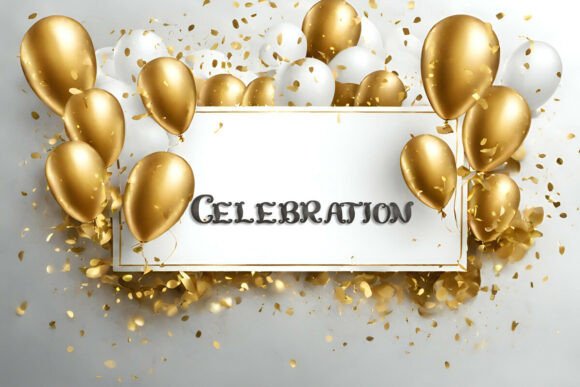
Celebration Font – The Life of Your Design Party
Are you looking for a font that can add a touch of excitement and joy to your designs? Look no further than Celebration Font! This versatile and spirited typeface is perfect for a wide range of projects, from festive banners to headline-worthy magazine covers. With its clean, dynamic cuts, Celebration Font brings a modern flair to any project without losing its charm.
What Makes Celebration Font So Special?
Celebration Font is more than just a font – it’s an experience. Its unique design makes it perfect for a variety of applications, including:
- Designing branding materials that stand out: Whether you’re creating a logo, business card, or brochure, Celebration Font is sure to make your brand shine.
- Crafting eye-catching stickers with personality: Add a pop of fun and color to your stickers with Celebration Font’s playful design.
- Adding pizzazz to SVG files or greeting cards: Take your SVG files and greeting cards to the next level with Celebration Font’s modern and dynamic cuts.
- Working on Cricut projects that need that extra spark: Whether you’re creating custom signs, decorations, or gifts, Celebration Font is the perfect addition to your Cricut projects.
Celebration Font is perfect for a wide range of projects, including:
- Social media posts that need to shine: Stand out on social media with Celebration Font’s bold and eye-catching design.
- Posters that demand attention: Create posters that grab attention and leave a lasting impression with Celebration Font.
- Holiday projects, party invites, and more: Add a touch of festive fun to your holiday projects, party invites, and more with Celebration Font.
Why Choose Celebration Font?
So why choose Celebration Font for your next project? Here are just a few reasons:
- Versatility: Celebration Font is versatile and can be used for a wide range of projects.
- Modern design: Celebration Font’s clean, dynamic cuts bring a modern flair to any project.
- Easy to use: Celebration Font is easy to use and can be easily integrated into your design workflow.
- High-quality: Celebration Font is a high-quality font that is designed to deliver exceptional results.
Tips for Using Celebration Font
Here are a few tips for using Celebration Font in your next project:
- Experiment with different colors: Celebration Font looks great in a variety of colors, so don’t be afraid to experiment and find the perfect color for your project.
- Play with font sizes: Celebration Font can be used at a variety of font sizes, from large and bold to small and subtle.
- Combine with other fonts: Celebration Font pairs well with other fonts, so try combining it with other fonts to create a unique and interesting design.
In conclusion, Celebration Font is a versatile and spirited typeface that is perfect for a wide range of projects. With its clean, dynamic cuts and modern design, Celebration Font brings a touch of excitement and joy to any design. Whether you’re a designer, crafter, or DIY enthusiast, Celebration Font is sure to become a favorite in your design arsenal. So why wait? Start celebrating your creations with Celebration Font today!
Let your creativity soar and celebrate every creation with a font that keeps on giving. With Celebration Font, you’ll be able to:
- Create stunning designs that grab attention
- Add a touch of festive fun to your projects
- Take your designs to the next level with a modern and dynamic font
Celebration Font is the perfect addition to any design project. So why not give it a try today and see the difference it can make?